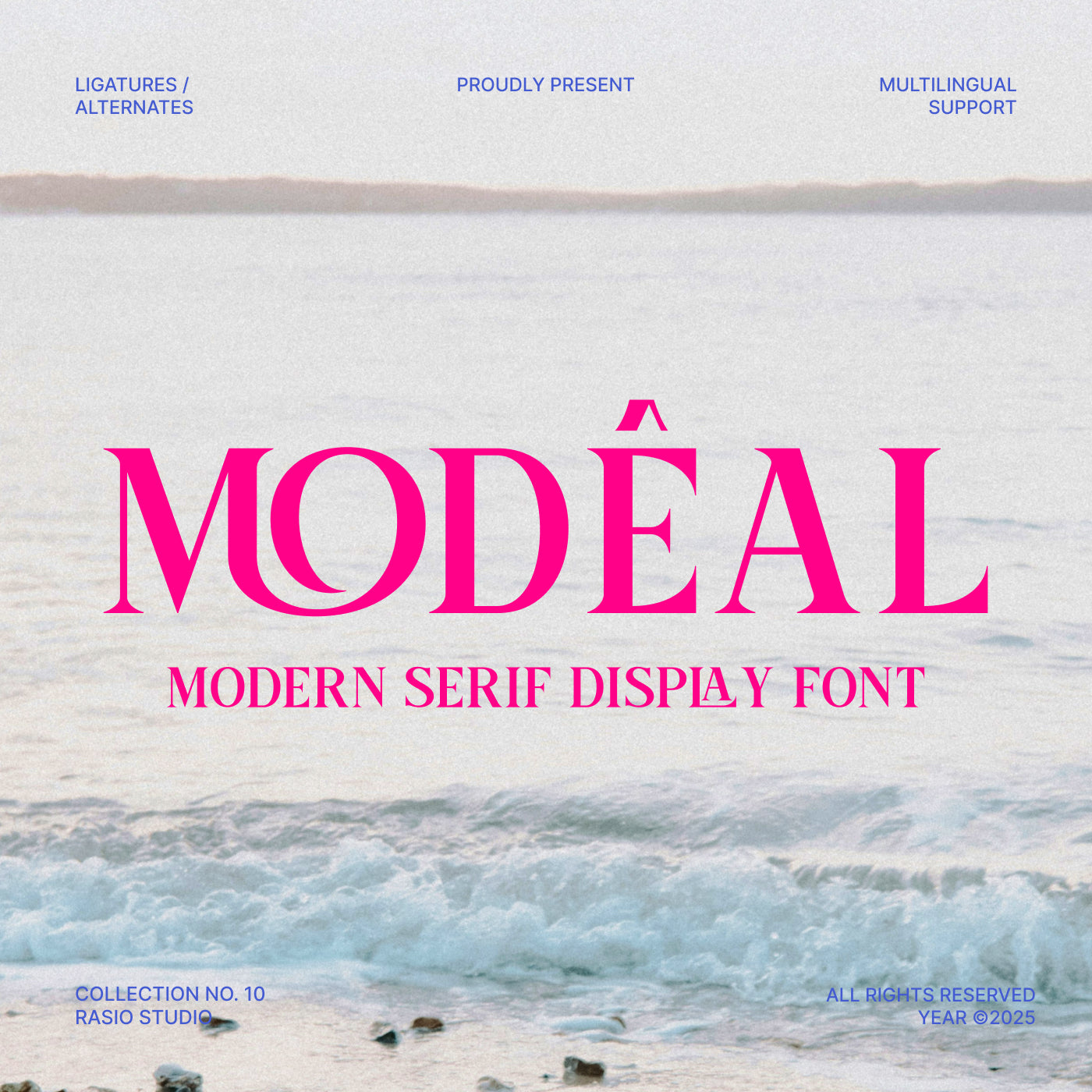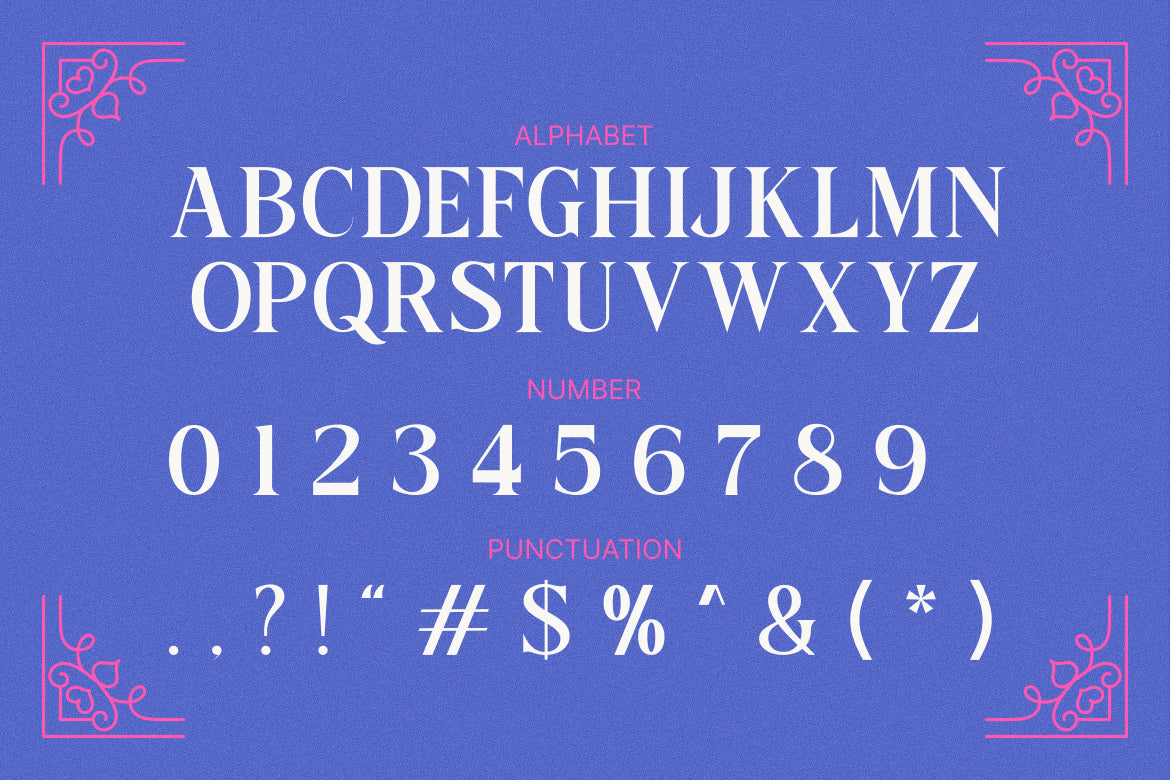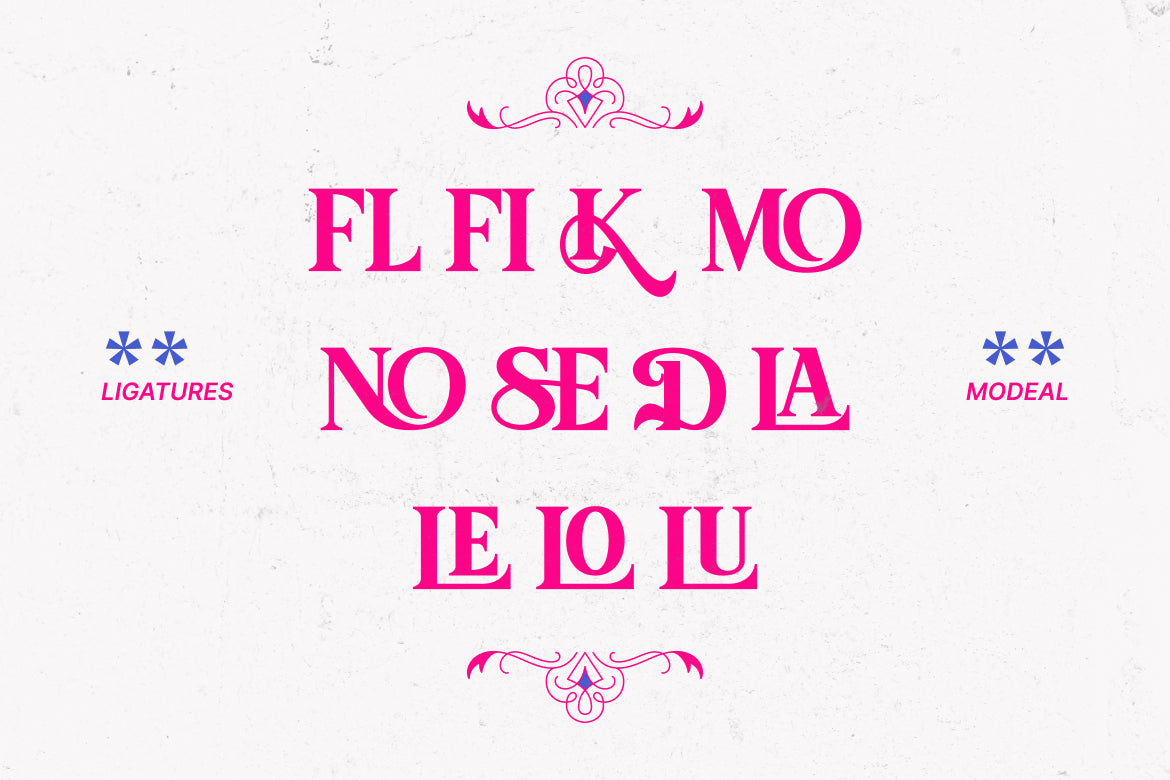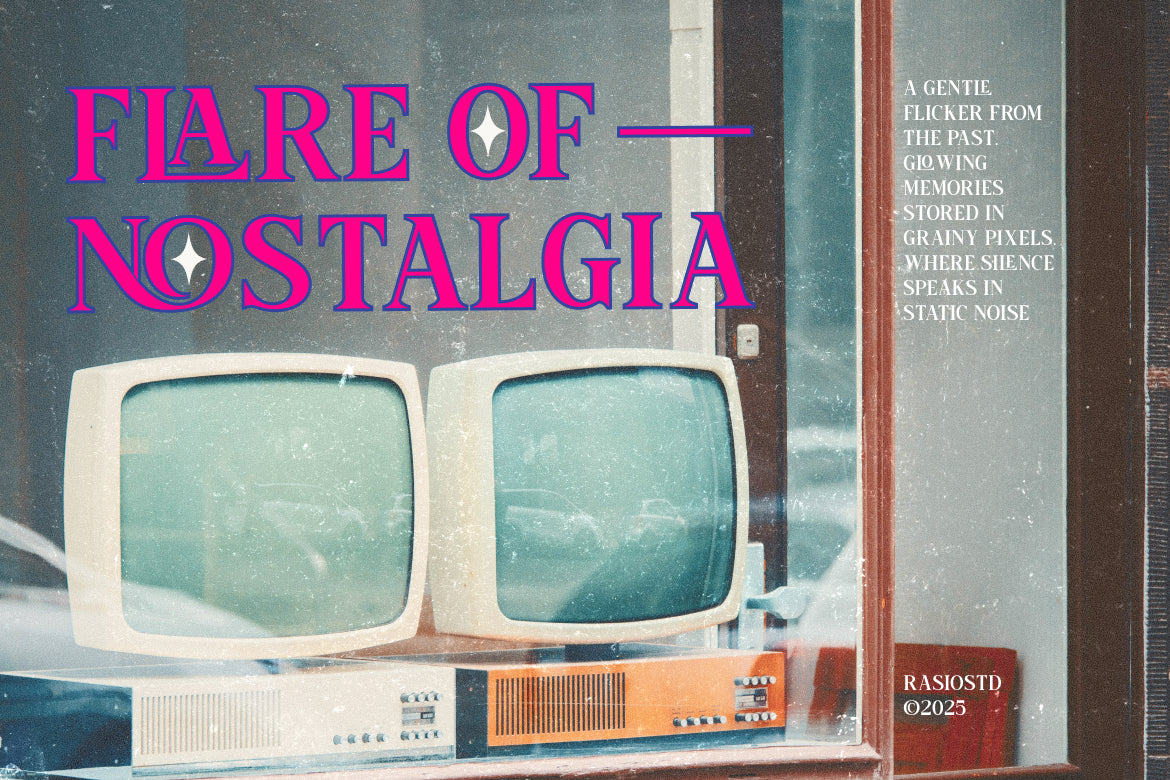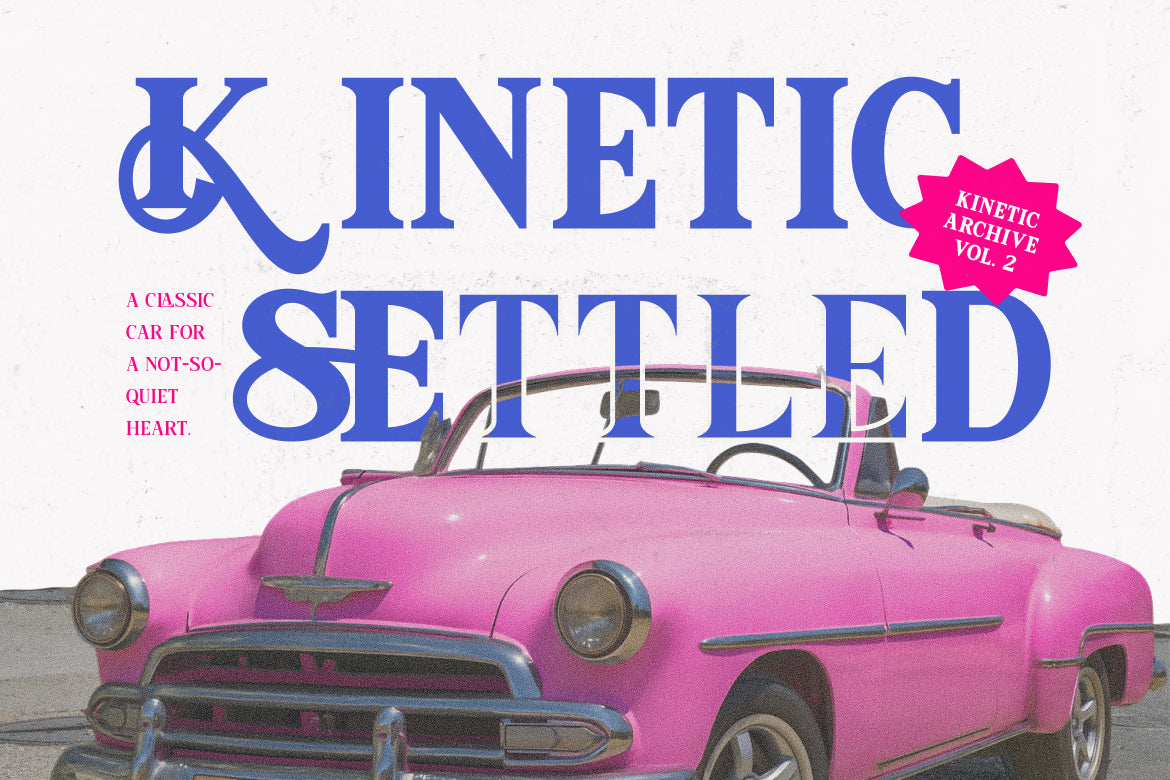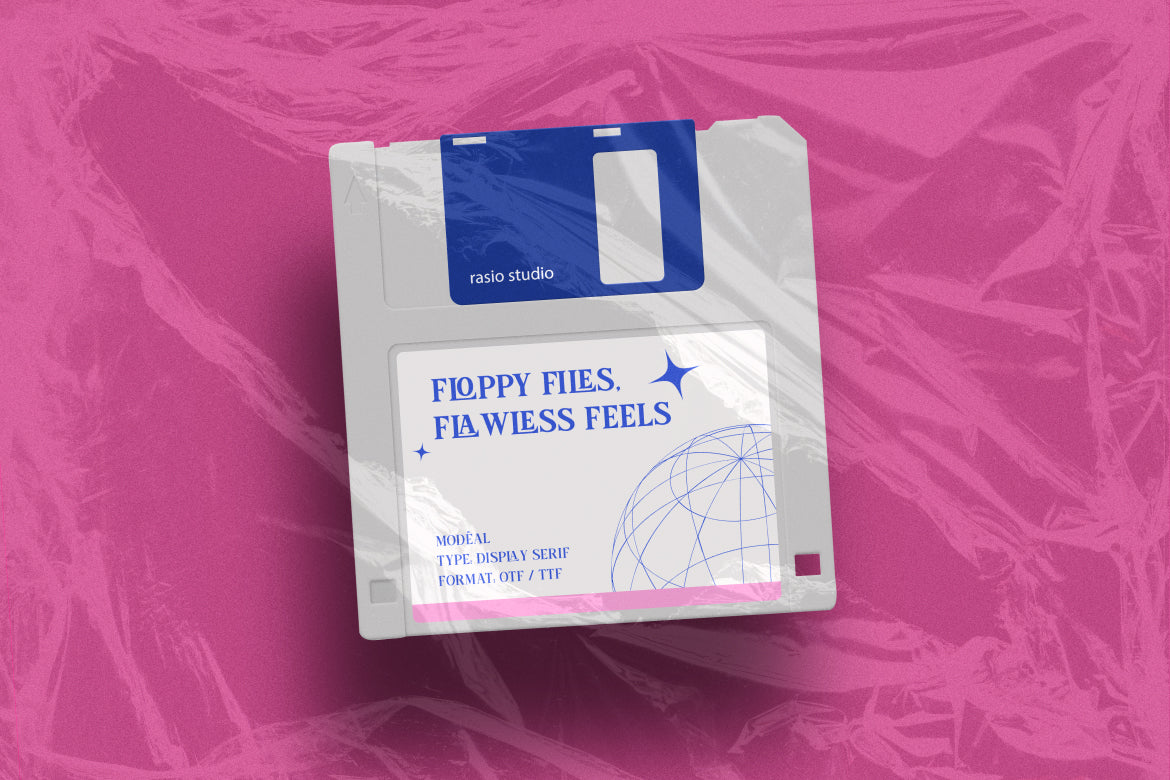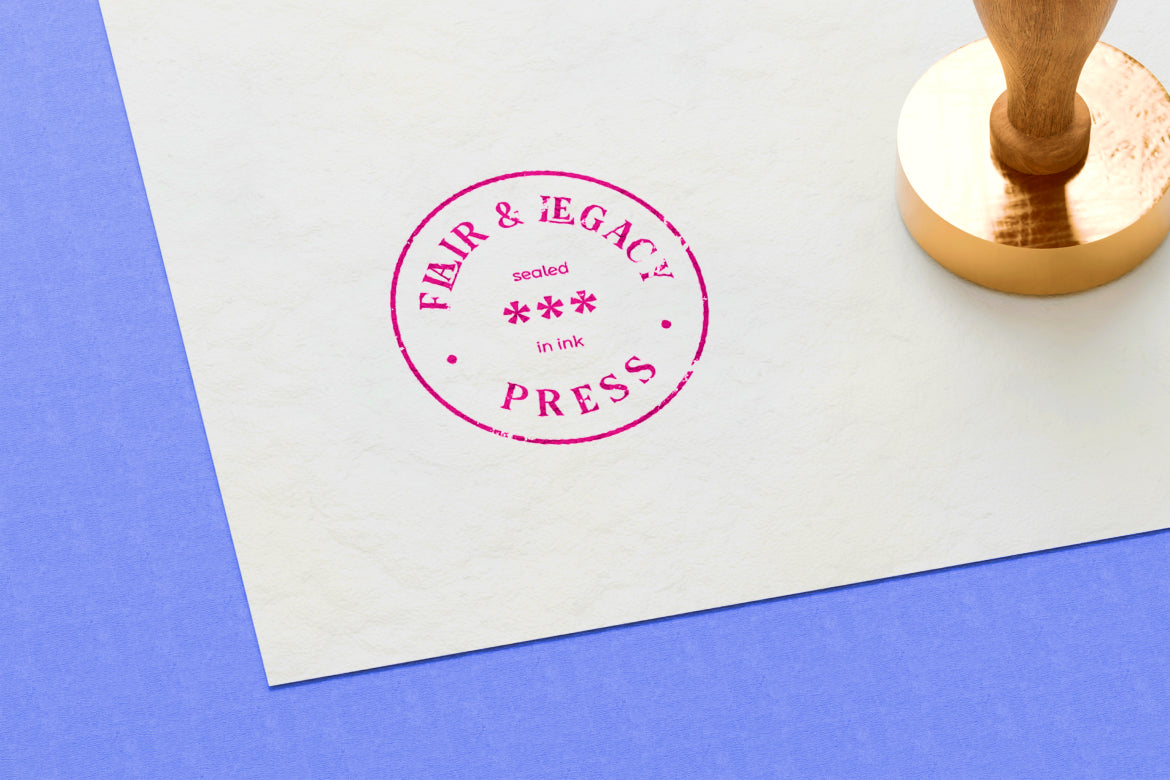
Modeal Modern Serif Display Font
Modeal is a modern serif display font that blends nostalgic charm with bold contemporary flair. With elegant ligatures and alternates, this font exudes sophistication and drama, making it a perfect choice for branding, editorials, retro visuals, and luxury-themed designs. Its sharp serifs, high contrast strokes, and expressive stylistic characters bring a sense of heritage and modern opulence to any layout. Whether you're crafting logos, magazine titles, packaging, or social media quotes, Modêal delivers a strong, stylish impression.
Modeal Modern Serif Display Font is a contemporary serif typeface featuring elegant ligatures and alternates, designed in TTF, OTF, and WOFF formats. It includes uppercase and lowercase letters, numerals, and punctuation, making it suitable for various design applications.